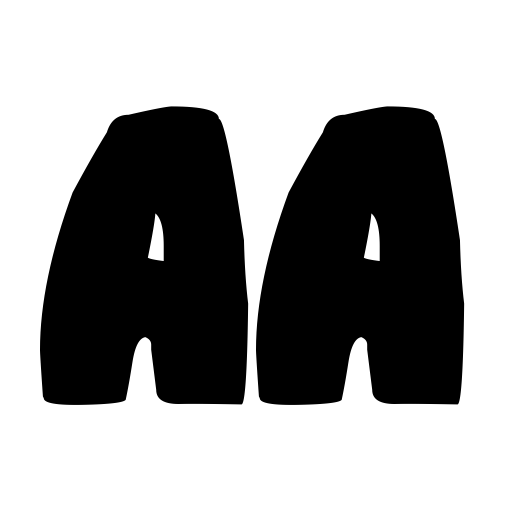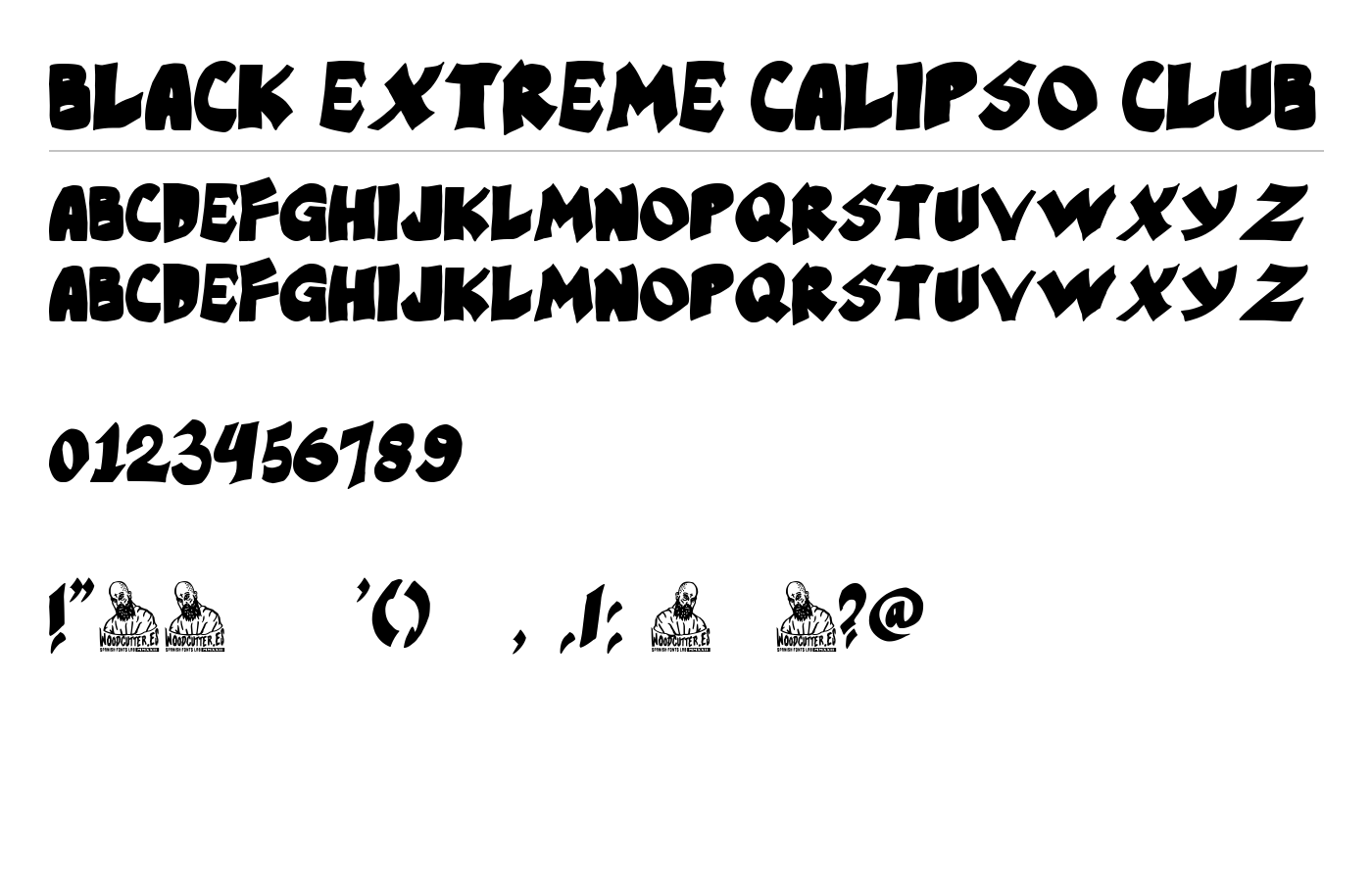
Black Extreme Calipso Club is a bold, playful sans serif font with thick, uneven strokes and a hand-crafted feel. Its heavy weight and irregular shapes give it a dynamic, energetic personality, making it perfect for eye-catching headlines, posters, and branding that wants to convey fun and creativity. This font’s informal style works well for entertainment, youth-oriented designs, and any project needing a strong, lively voice.
Black Extreme Calipso Club Font
About Black Extreme Calipso Club Font